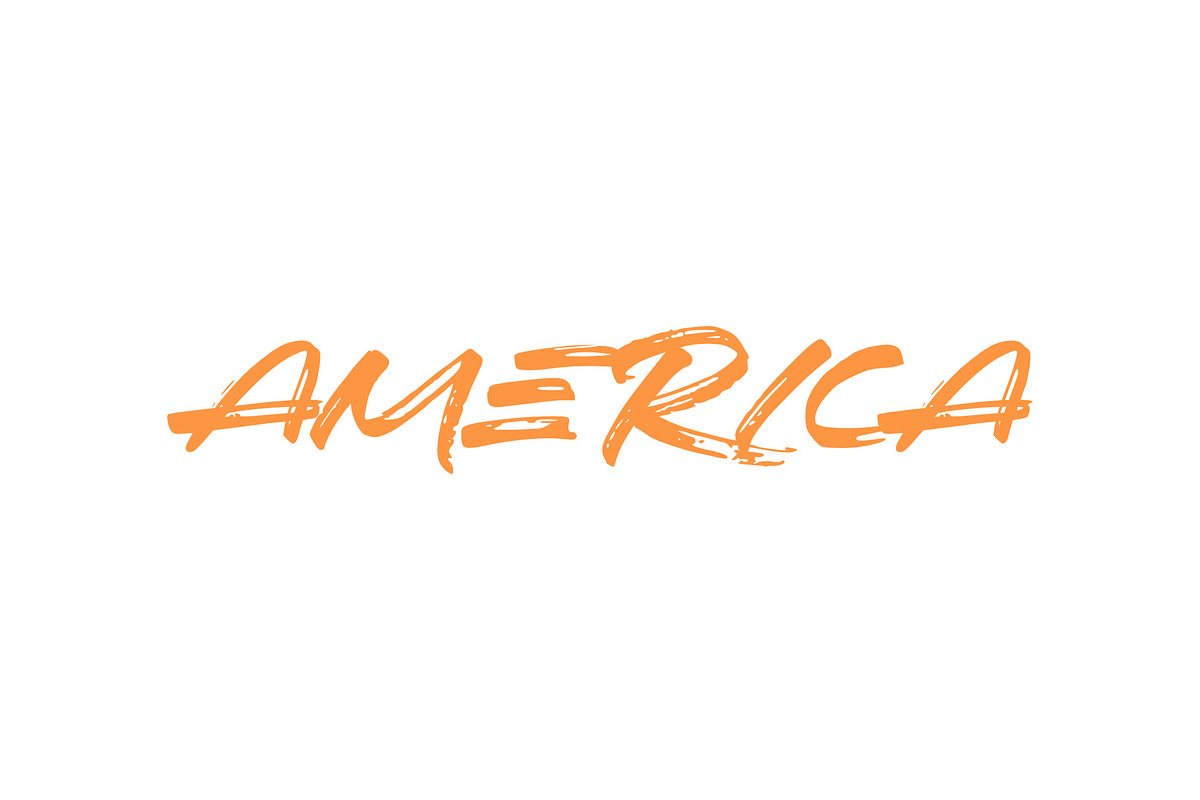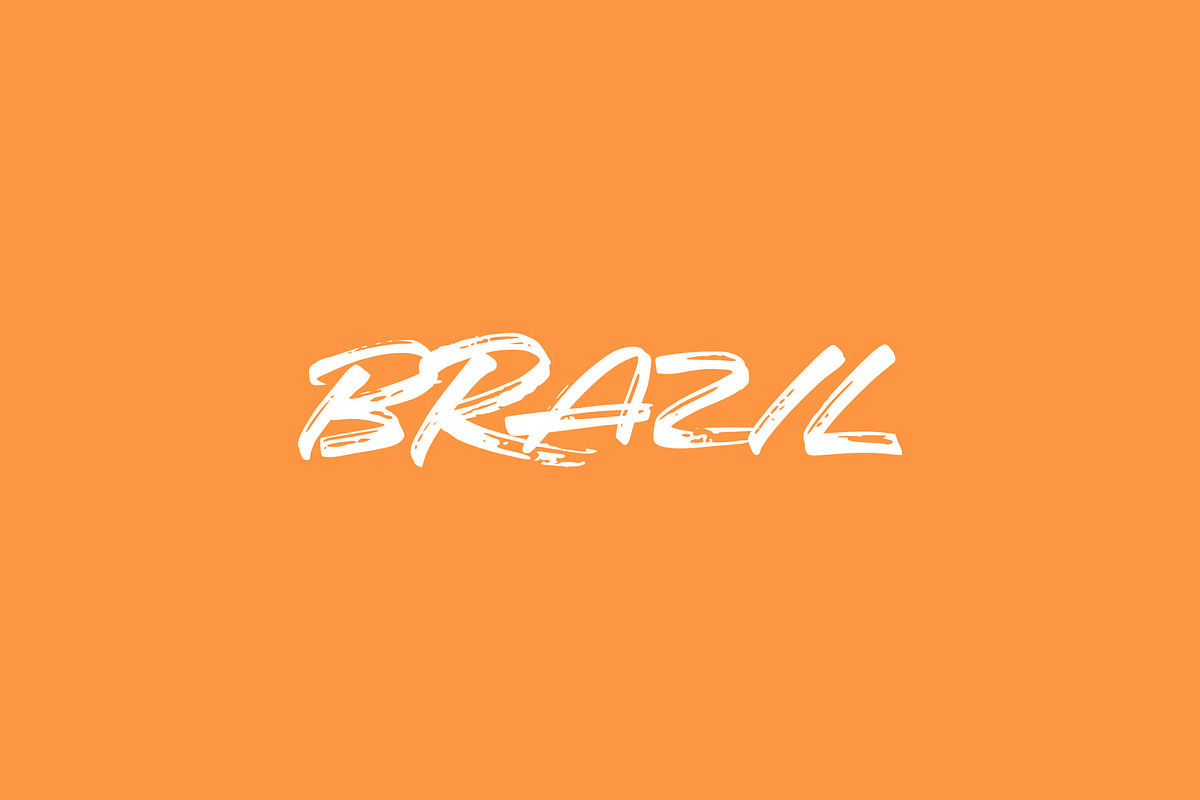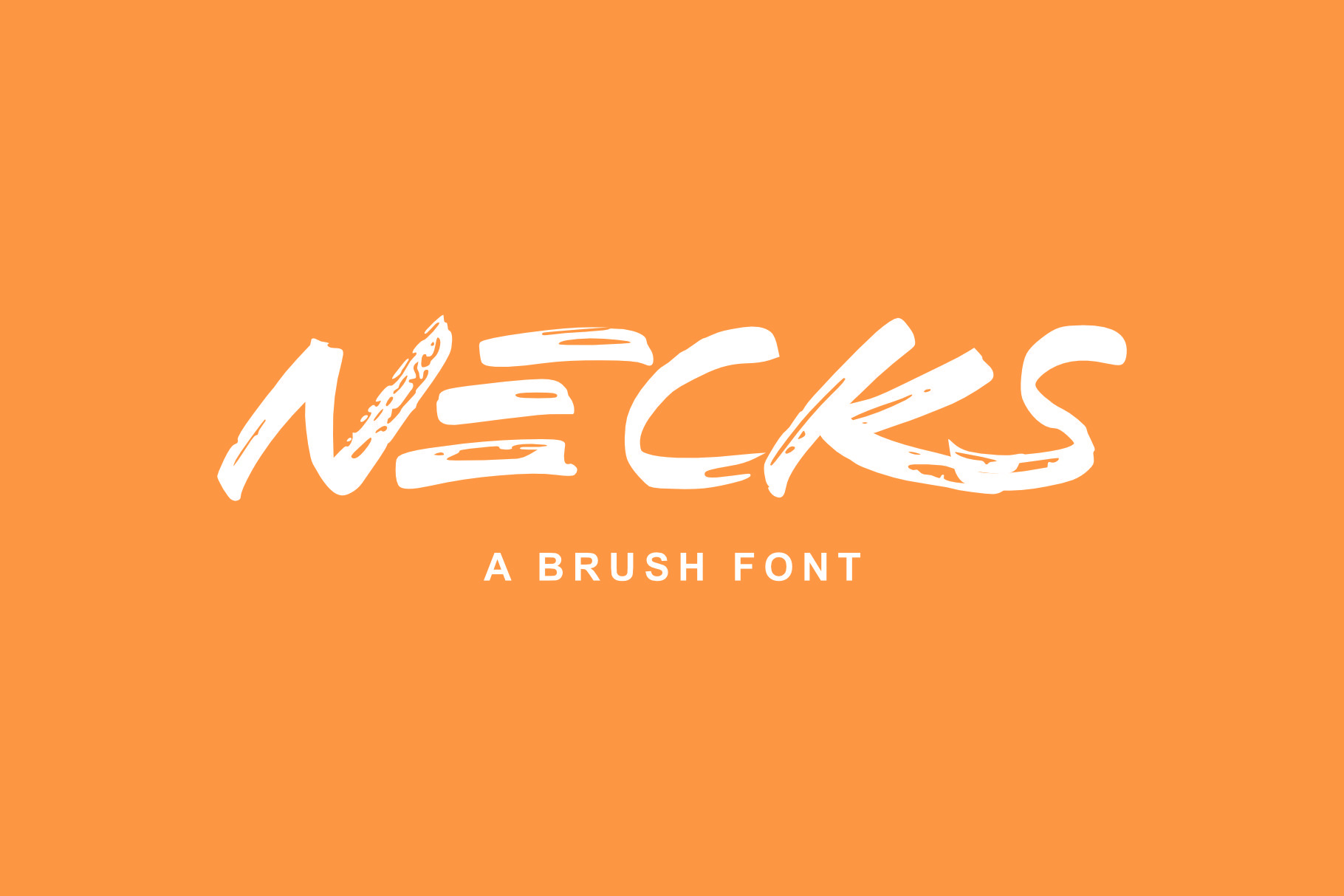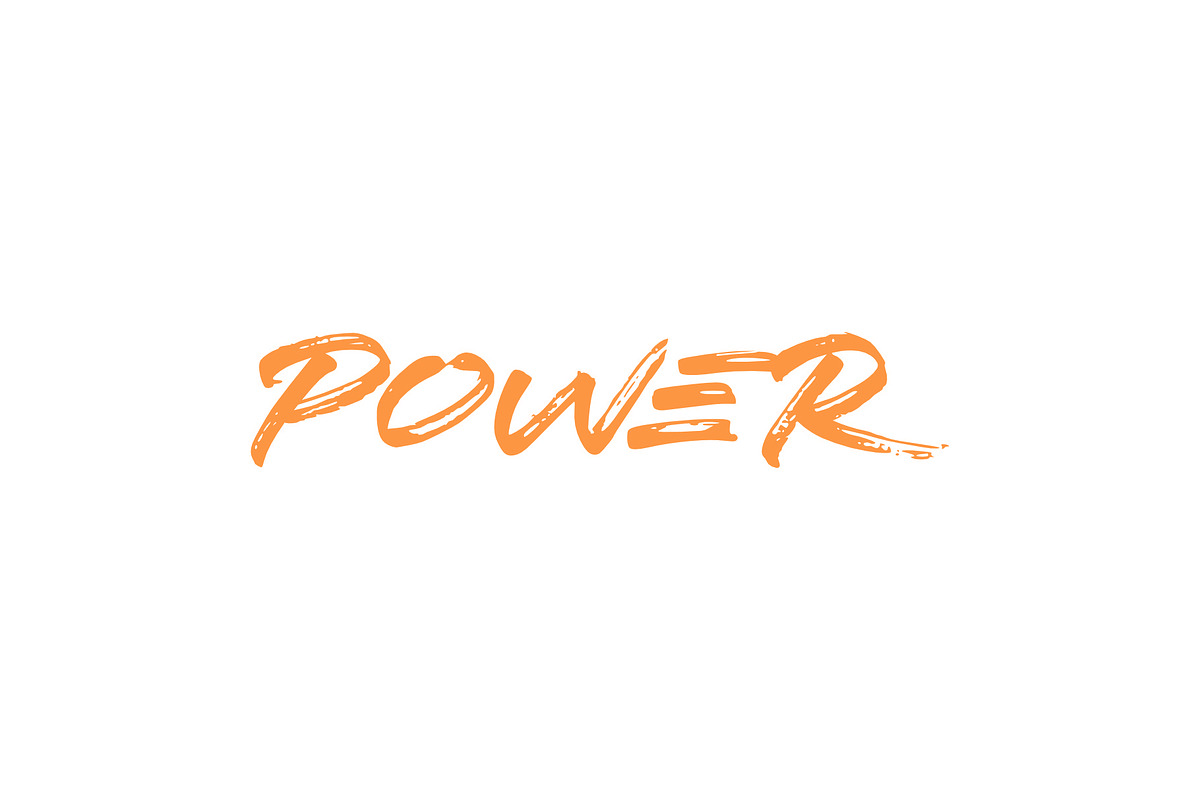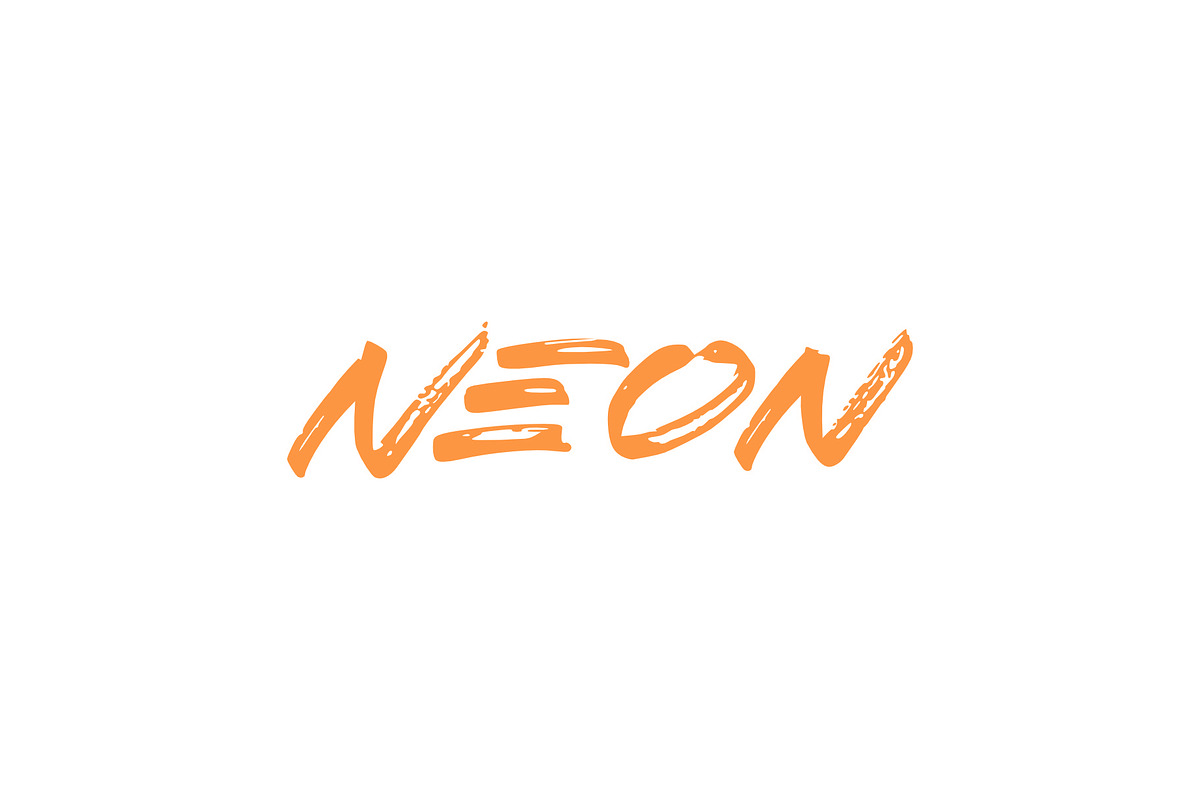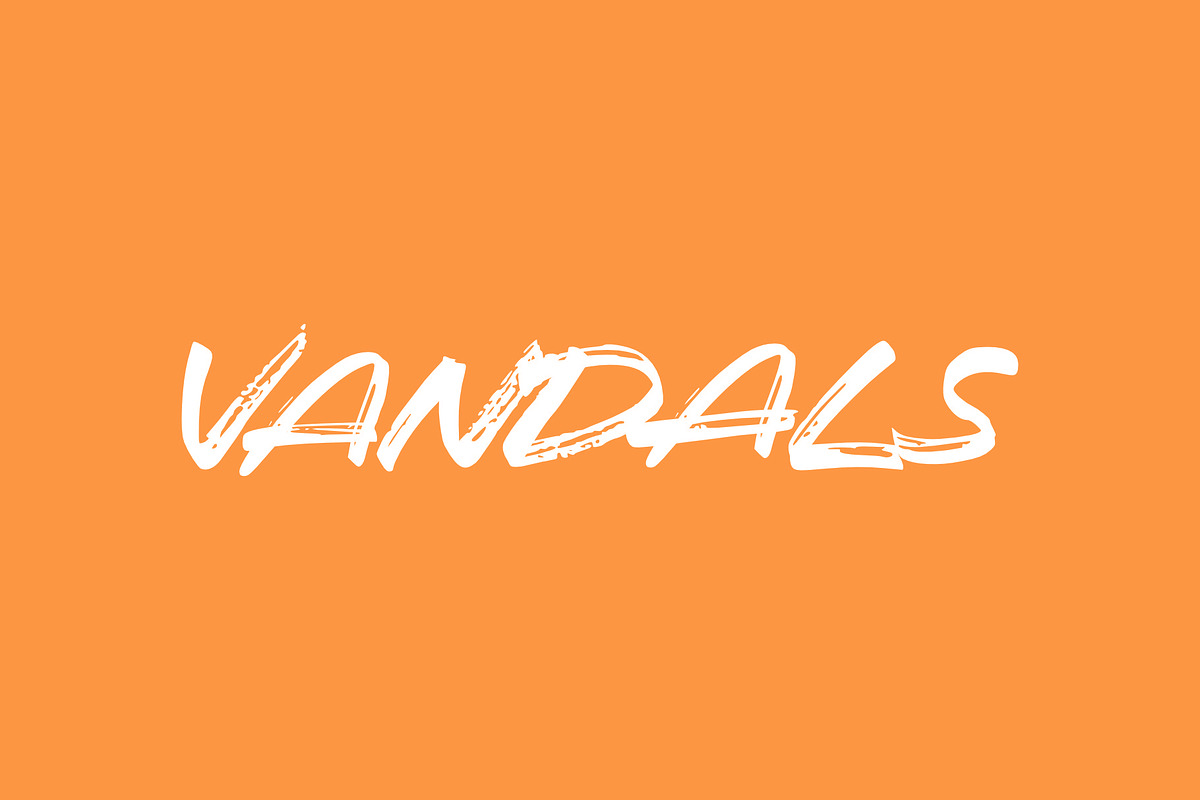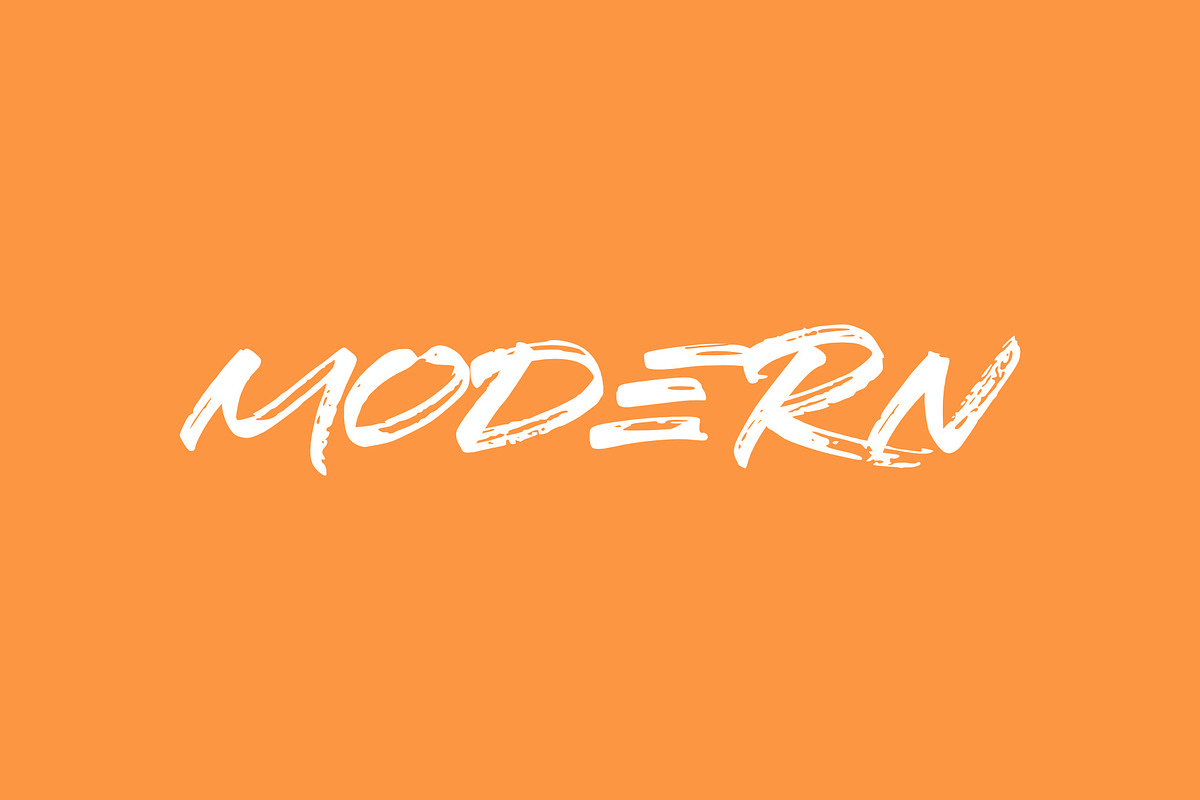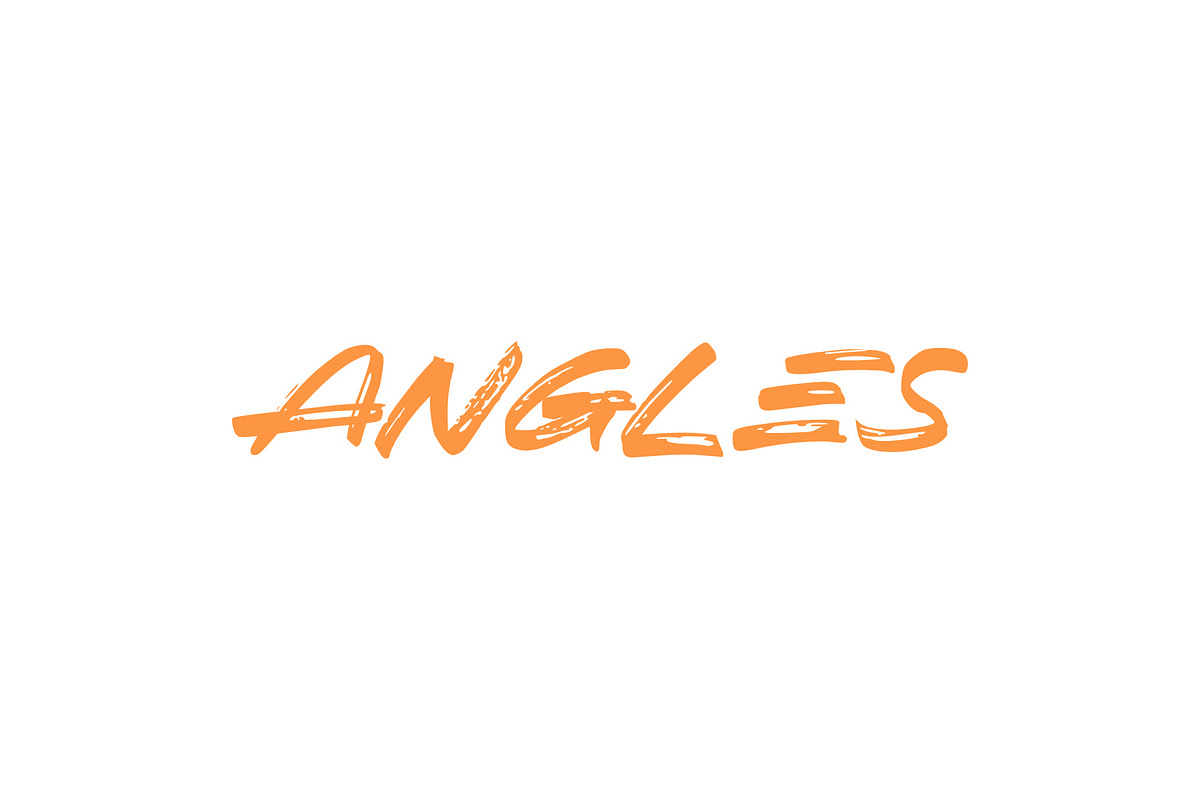
NECKS | A BRUSH FONT
NECKS is a bold and chunky lettered display font, created with the help of a brush pen. Add this font to your favorite creative ideas!